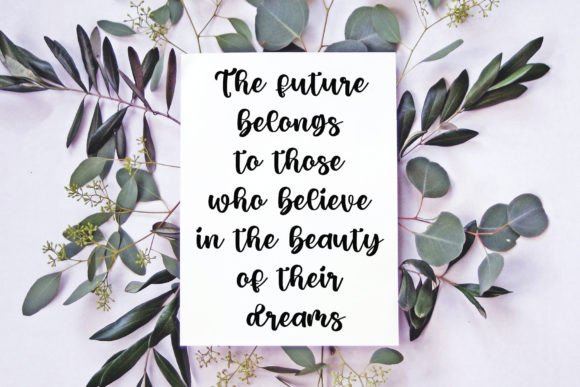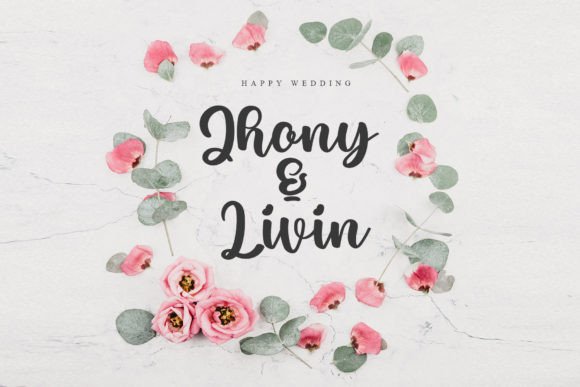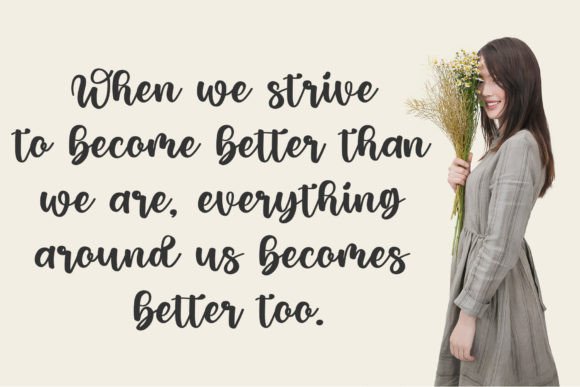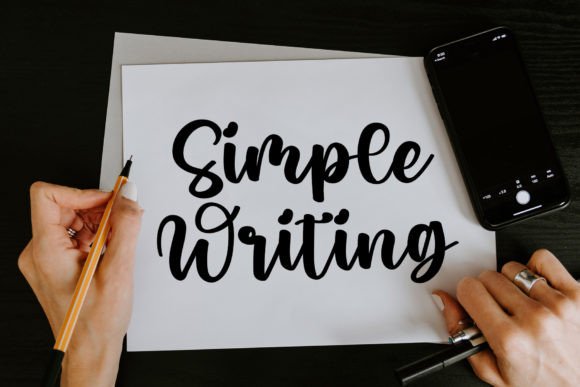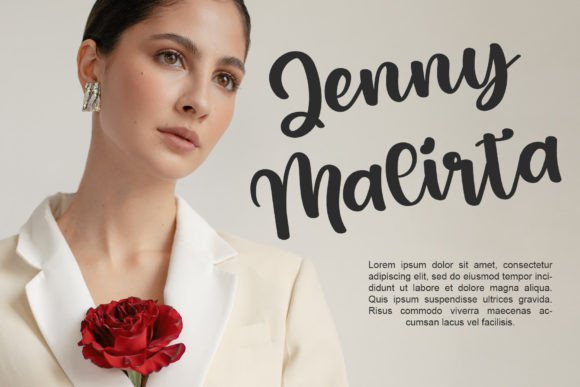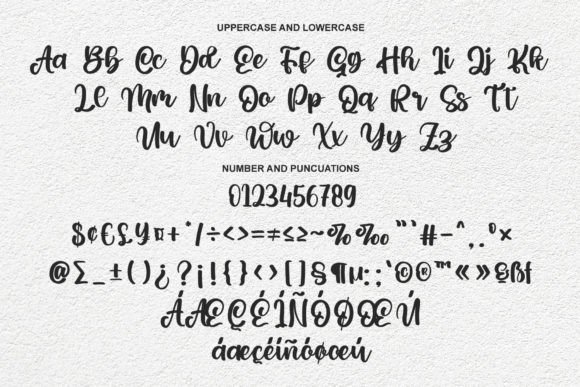
Introducing Backdrop Font: A Perfect Blend of Playfulness and Professionalism
In the world of typography, a font can make or break a design project. It’s the foundation upon which the entire visual identity is built. For designers and crafters, finding the right font can be a daunting task. However, if you’re looking for a bold, expressive, and versatile script font, look no further than Backdrop Font. In this article, we’ll dive into the features and benefits of Backdrop Font, and explore how it can elevate your design projects.
What is Backdrop Font?
Backdrop Font is a bold and expressive script font that boasts thick and solid lines, making it easy to read and understand. Its conservative bends ensure that the font isn’t overwhelming to the eyes, making it perfect for a wide range of design projects. Whether you’re working on a logo, branding materials, or marketing collateral, Backdrop Font is an excellent choice.
Key Features of Backdrop Font
- Bold and Expressive: Backdrop Font is a bold and expressive script font that makes a statement. Its thick lines and confident strokes give it a sense of authority and professionalism.
- Easy to Read: The font’s solid lines and clear letterforms make it easy to read, even at smaller sizes. This makes it perfect for body text, headings, and titles.
- Conservative Bends: Unlike some script fonts, Backdrop Font’s conservative bends ensure that it doesn’t feel overwhelming or cluttered. This makes it perfect for designs where you want to make a statement without overpowering the other elements.
- Playful yet Professional: Backdrop Font strikes the perfect balance between playfulness and professionalism. Its bold lines and expressive strokes give it a sense of fun, while its clear letterforms and conservative bends keep it grounded and professional.
What Projects is Backdrop Font Perfect For?
Backdrop Font is an incredibly versatile font that can be used for a wide range of design projects. Here are some ideas to get you started:
- Logo Design: Backdrop Font’s bold and expressive lines make it perfect for logos that need to make a statement.
- Branding Materials: Use Backdrop Font for business cards, letterheads, and other branding materials to create a consistent visual identity.
- Marketing Collateral: Backdrop Font is perfect for marketing materials like brochures, flyers, and posters.
- Packaging Design: Add a touch of personality to your packaging designs with Backdrop Font.
- Web Design: Use Backdrop Font for website headers, titles, and other design elements to add a touch of personality and style.
Tips for Using Backdrop Font
Here are some tips for getting the most out of Backdrop Font:
- Use it as a Headline Font: Backdrop Font is perfect for headlines and titles. Use it to add a touch of personality and style to your designs.
- Pair it with a Sans-Serif Font: For body text, pair Backdrop Font with a clean sans-serif font to create a striking contrast.
- Experiment with Colors: Backdrop Font looks great in a wide range of colors. Experiment with different colors and gradients to find the perfect look for your design.
| Font Name | Backdrop Font |
| Author | Bintang Studio |
In conclusion, Backdrop Font is an exceptional script font that offers a perfect blend of playfulness and professionalism. Its bold and expressive lines, easy readability, and conservative bends make it perfect for a wide range of design projects. Whether you’re a designer or crafter, Backdrop Font is an excellent addition to your font library. So why wait? Download Backdrop Font today and take your designs to the next level!